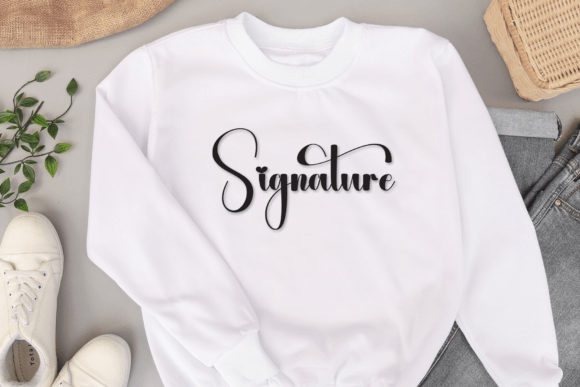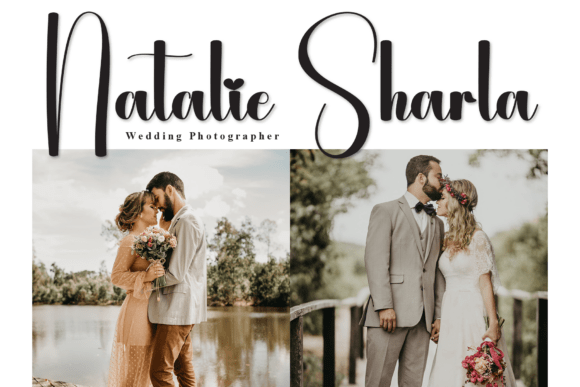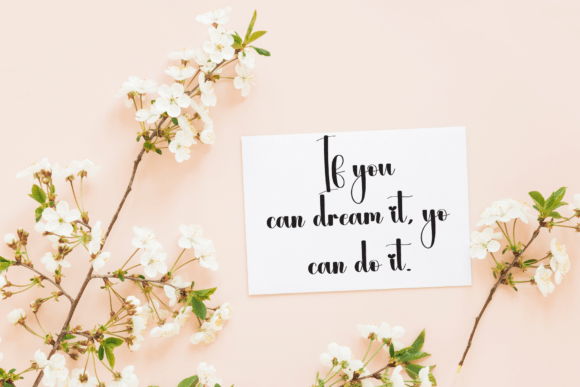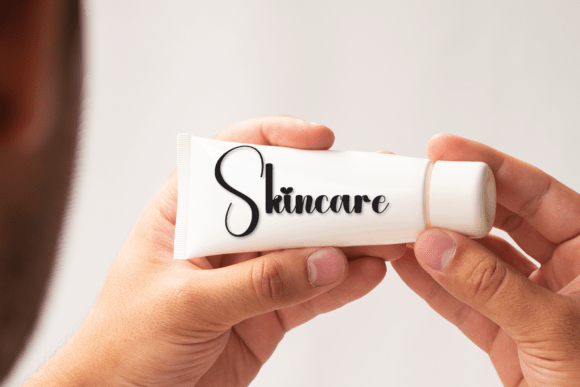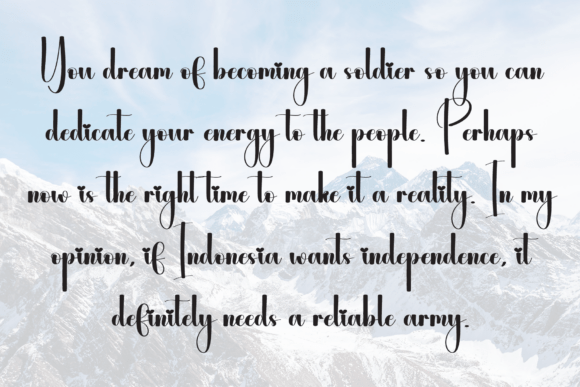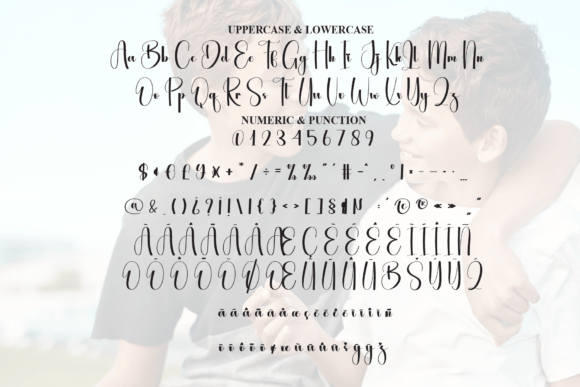
Introducing Brothers Font: The Charming Handwritten Display Font
Are you looking for a font that can add a touch of sweetness and playfulness to your designs? Look no further than Brothers Font, a delightful handwritten display font that’s perfect for crafting exquisite wedding invitations, cards, and more. With its endearing customizability, this font is a quintessential choice for any creative design yearning for a lovely and entertaining touch.
A Font that Exudes Sweetness and Playfulness
Brothers Font is a charming handwritten display font that’s designed to bring a sense of fun and playfulness to your designs. Its unique and whimsical style makes it perfect for a variety of creative projects, from wedding invitations and cards to posters and social media graphics. With its sweet and endearing tone, this font is sure to capture the hearts of your audience and leave a lasting impression.
Brothers Font is particularly well-suited for crafting exquisite wedding invitations and cards. Its elegant and sophisticated style makes it perfect for formal wedding designs, while its playful and whimsical tone adds a touch of romance and fun. Whether you’re designing a wedding invitation, save-the-date card, or thank-you note, this font is sure to make your design stand out.
Customizability at its Finest
One of the best things about Brothers Font is its endearing customizability. With a range of customization options available, you can tailor this font to suit your design needs. From adjusting the font size and style to adding your own unique touches, you can make this font truly your own. Whether you’re a seasoned designer or a crafty DIY enthusiast, this font is easy to use and customize.
Why Choose Brothers Font?
So why choose Brothers Font for your next design project? Here are just a few reasons why this font stands out:
- Unique and Whimsical Style: Brothers Font has a one-of-a-kind style that’s sure to capture the hearts of your audience.
- Elegant and Sophisticated: This font is perfect for formal wedding designs and other elegant projects.
- Playful and Fun: Add a touch of playfulness and fun to your designs with this delightful font.
- Easy to Customize: With a range of customization options available, you can tailor this font to suit your design needs.
Tips for Using Brothers Font
Here are a few tips for using Brothers Font in your design projects:
- Pair with Other Fonts: Try pairing Brothers Font with other fonts to create a unique and eye-catching design.
- Experiment with Colors: Don’t be afraid to experiment with different colors and textures to add depth and interest to your design.
- Use for Headings and Titles: Brothers Font is perfect for headings and titles, but don’t be afraid to use it for body text too.
In conclusion, Brothers Font is a charming handwritten display font that’s perfect for adding a touch of sweetness and playfulness to your designs. With its elegant and sophisticated style, playful and fun tone, and endearing customizability, this font is a quintessential choice for any creative design project. Whether you’re designing a wedding invitation, card, or other project, Brothers Font is sure to make your design stand out.